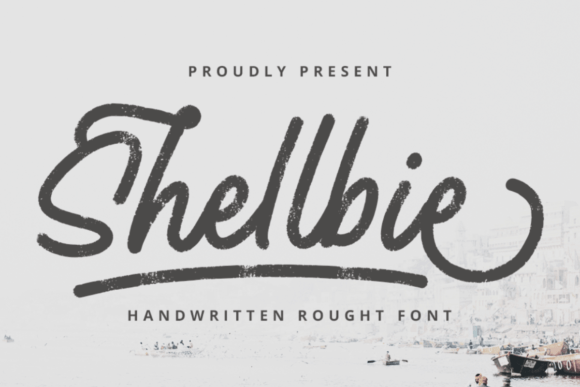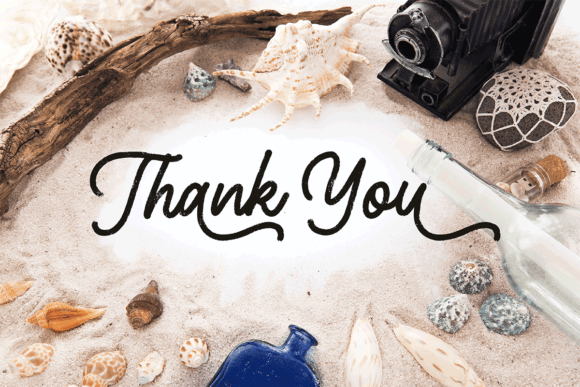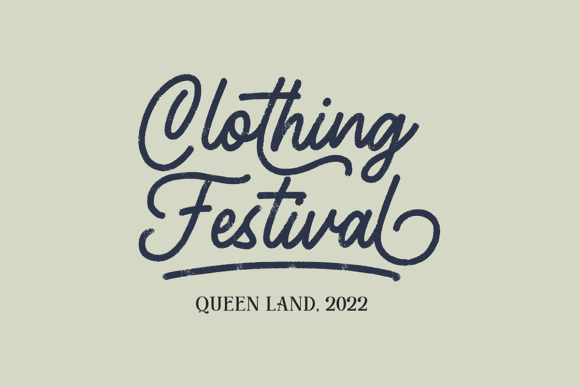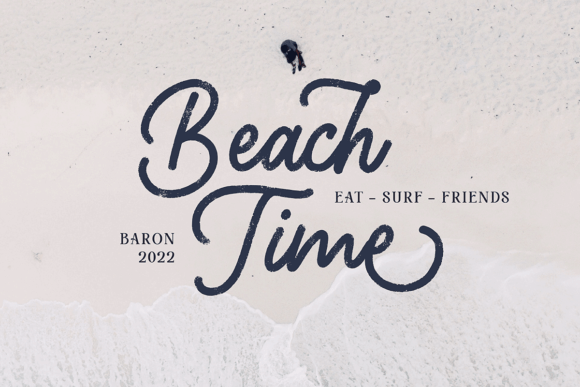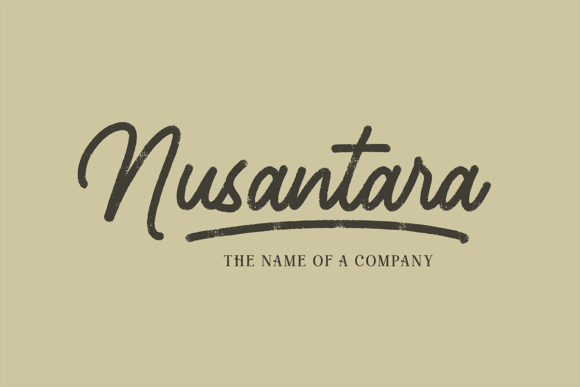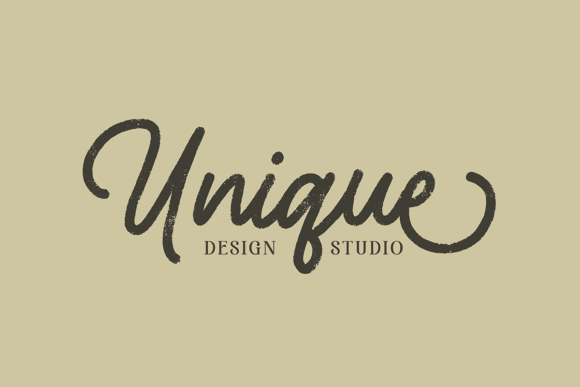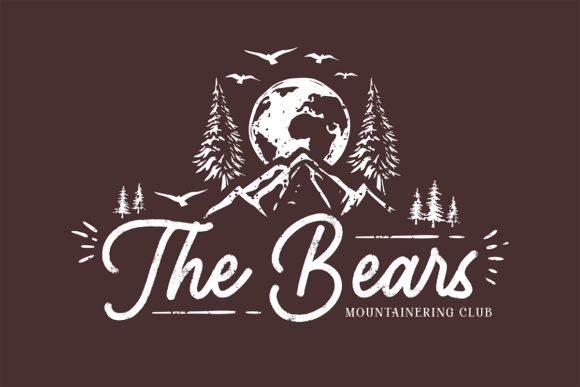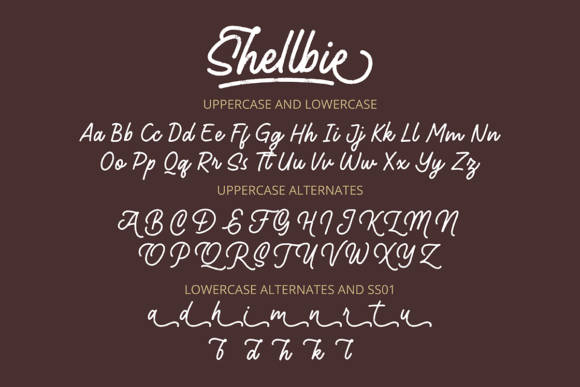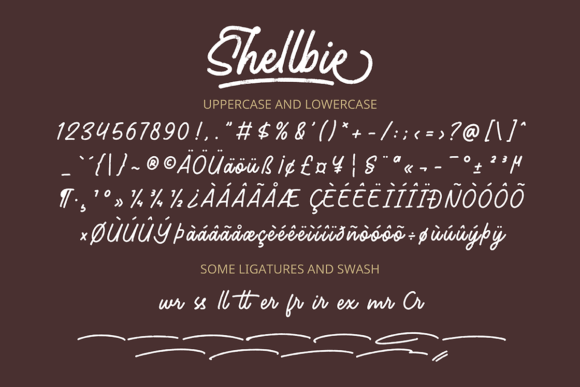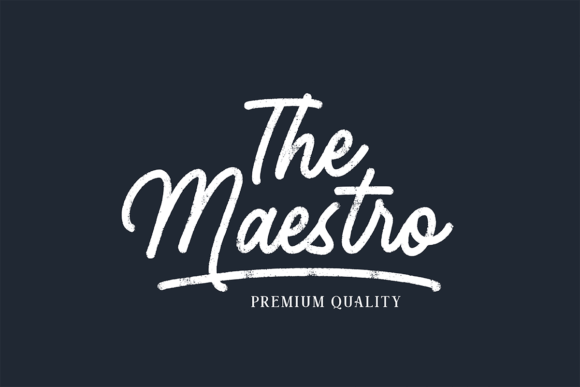
Shellbie Font
About Shellbie Font
**Shellbie: Where Elegance Meets Playful Beauty**
Introducing **Shellbie**, a delightful handwritten font that effortlessly combines sweetness with sophistication. With its graceful curves and playful demeanor, **Shellbie** brings a touch of elegance to your projects while infusing them with a sense of whimsical charm. Wherever you use it, this font will make your designs dance with joy and creativity.
**Elevate Your Designs:**
**Shellbie** is more than just a font – it’s an embodiment of grace and playfulness. Its exquisite letterforms and charming details elevate your designs, making them stand out with a touch of elegance. Whether you’re working on logos, printed quotes, social media posts, or packaging, **Shellbie** adds a layer of sophistication that captivates the eye and leaves a lasting impression.
**Versatile Beauty:**
While **Shellbie** exudes a playful vibe, its versatility knows no bounds. It seamlessly integrates into a wide range of projects, enhancing each one with its unique charm. Use it for headings, advertisements, websites, branding, and more – wherever you need a blend of elegance and whimsy, **Shellbie** delivers with unmatched beauty.
**Creative Freedom with PUA Encoding:**
**Shellbie** is PUA encoded, granting you access to a wealth of glyphs and swashes. This feature empowers you to infuse your designs with creativity and personality. Experiment with various letter combinations, adorn your typography with stylish swashes, and let your imagination run wild. With **Shellbie**, you have the creative freedom to bring your vision to life.
**Make Your Designs Come Alive:**
With **Shellbie**, your projects will come alive with an aura of sophistication and joy. Let its elegant yet playful nature infuse your designs with character and style. Whether you’re crafting a brand identity, social media graphics, or printed materials, **Shellbie** will add a touch of magic, making your creations truly enchanting.
**Discover the Beauty of Shellbie:**
Embrace the beauty of **Shellbie** and let its elegance and playfulness transform your designs. Watch as your creations dance with creativity, drawing admiration and smiles wherever they go. Elevate your projects with the charm of **Shellbie** and experience the magic of handwritten elegance.